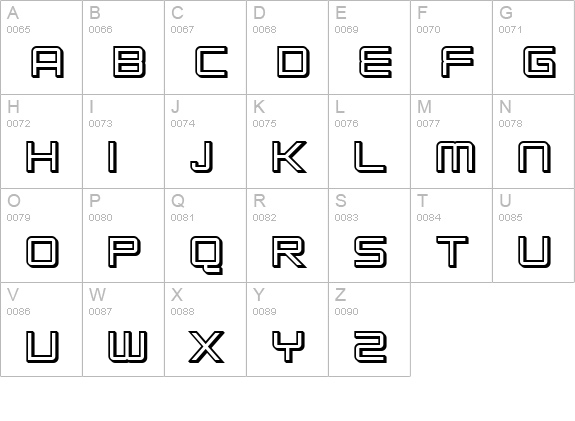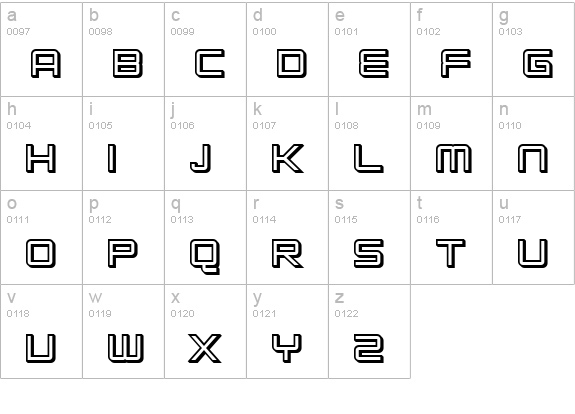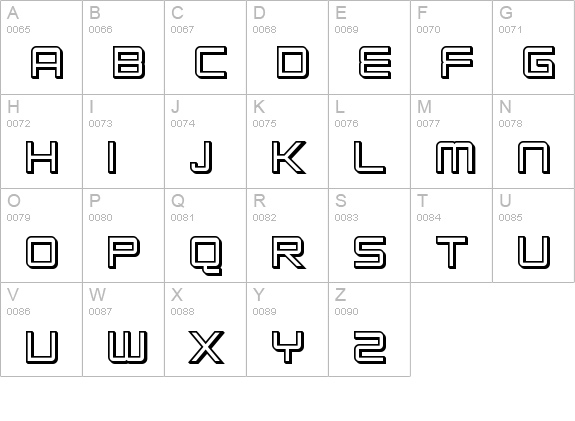
SF Chromium 24 SC Bold Font Details
SF Chromium 24 SC Bold is a strong, high-contrast variant in the SF typeface family \xE2\x80\x94 well suited to headlines, attention-grabbing titles, and strong calls-to-action.
SF Chromium 24 SC Bold font is a striking typeface that exudes a sense of strength and boldness. With its clean lines and sharp edges, this font commands attention and makes a powerful statement. Its bold weight provides a sturdy and impactful presence, making it perfect for conveying a strong and confident message. The SF Chromium 24 SC Bold font is not only visually captivating, but it also offers a touch of modernity and sophistication. Its sleek design and well-defined letterforms make it suitable for a wide range of design projects, from graphic design to branding and advertising. One of the standout features of this font is that it is freely available to download at FontsMarket.com. This means that users can access and utilize this remarkable typeface without any cost, making it an excellent choice for both personal and commercial projects. Whether you're a professional designer or an aspiring creator, SF Chromium 24 SC Bold font offers a high-quality solution without breaking the bank. With its versatility and eye-catching appeal, SF Chromium 24 SC Bold font is sure to enhance any project it is used in. Whether you're designing a logo, creating a poster, or crafting a website, this font will lend a touch of elegance and sophistication to your work. Download SF Chromium 24 SC Bold font today at FontsMarket.com and discover the endless possibilities it offers for your design endeavors.